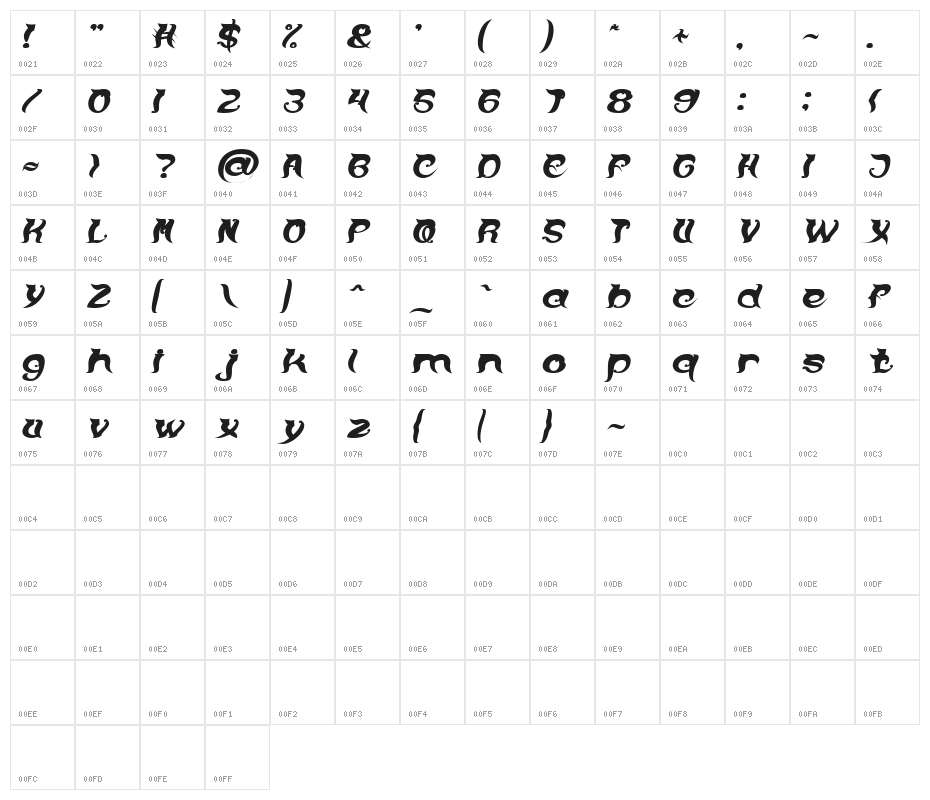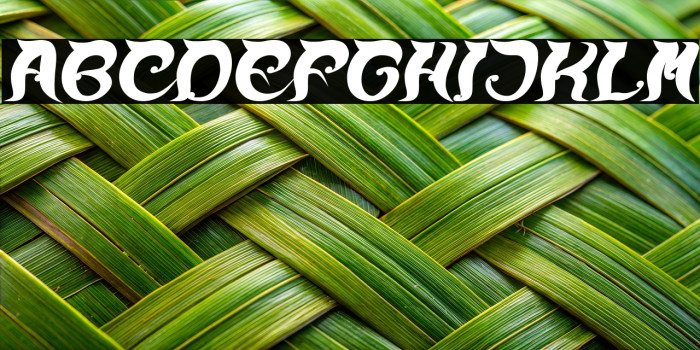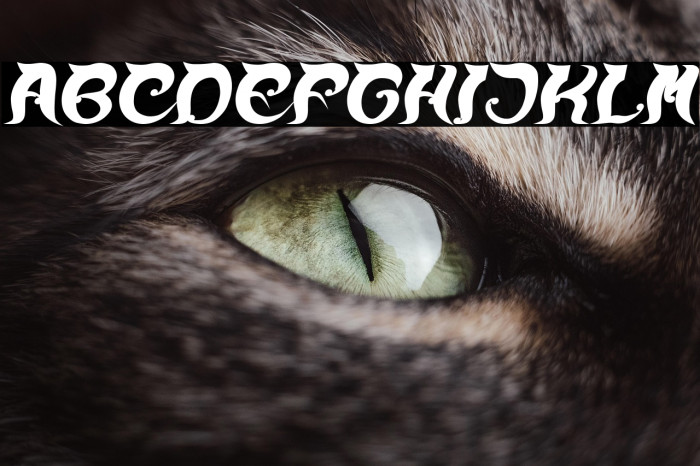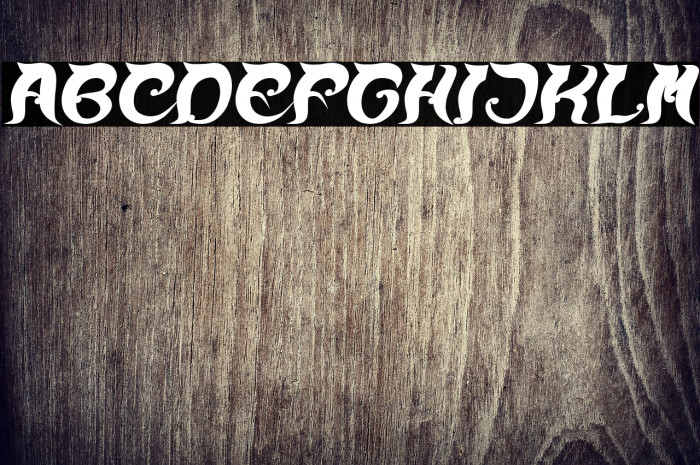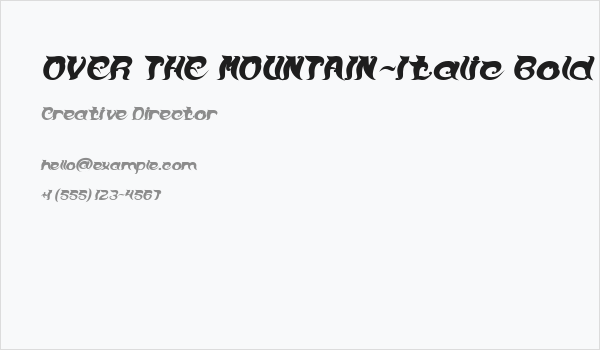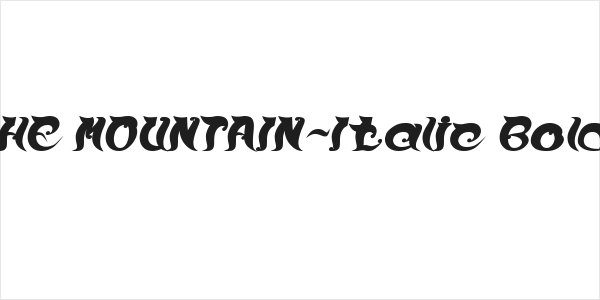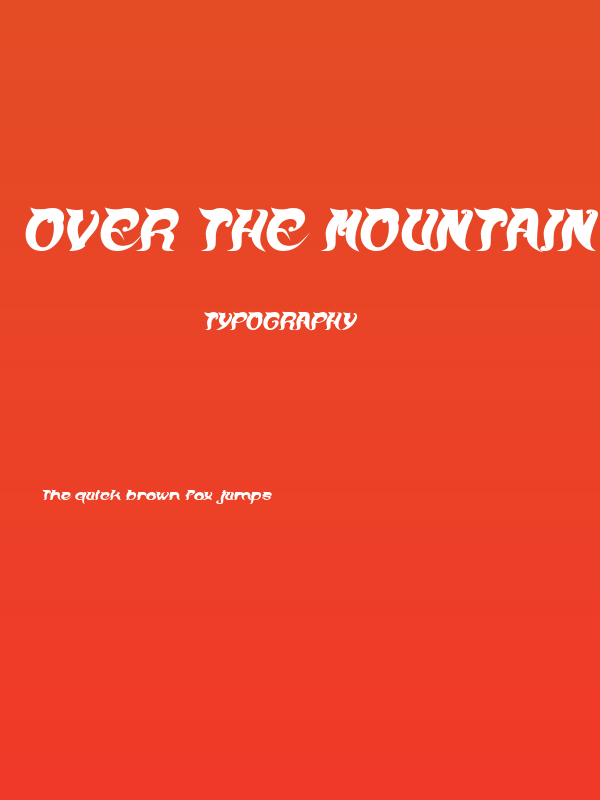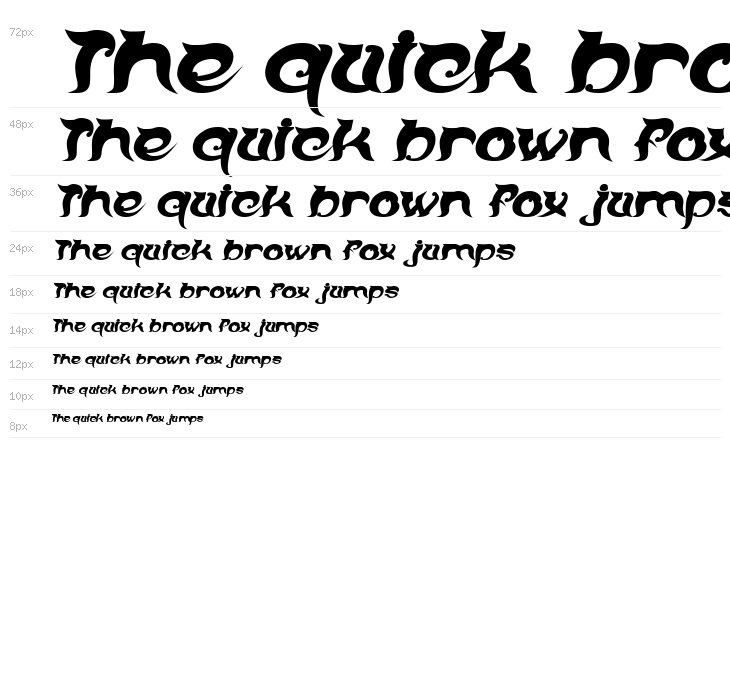
OVER THE MOUNTAIN-Italic Bold Italic Font
OVER THE MOUNTAIN-Italic Bold Italic Description
This font features a bold and italicized style with a decorative flair, characterized by its unique and artistic letterforms. The strokes are thick and sweeping, giving each character a dynamic and fluid appearance. The uppercase and lowercase letters maintain a consistent style, with exaggerated curves and pointed serifs that add a sense of movement and energy. The numbers and special characters follow the same design principles, ensuring a cohesive look across all glyphs. This font's boldness and decorative elements make it stand out, suitable for projects that require a strong visual impact.